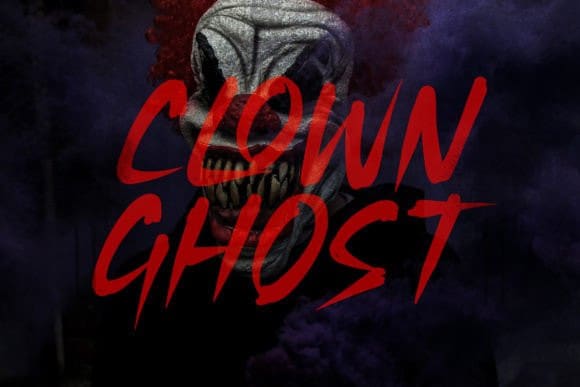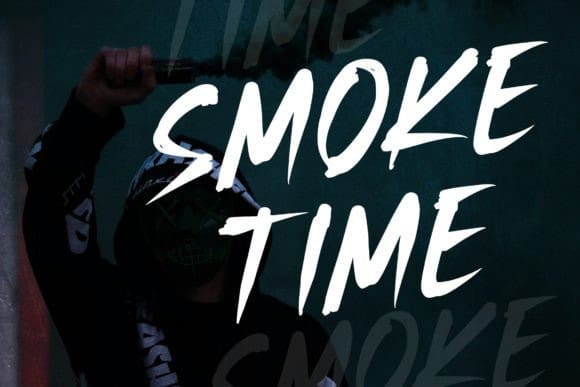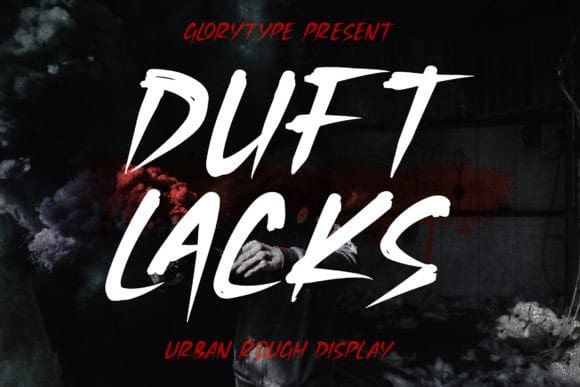
Duft Lacks Font
Duft Lacks Font – Urban Rough Display font suitable for any projects such as logos, branding projects, homeware designs, product packaging, mugs, quotes, posters, shopping bags, t-shirts, book covers, name cards, invitation cards, greeting cards, labels, photography, watermark, special events, and all your other lovely projects that need a beautiful script taste.